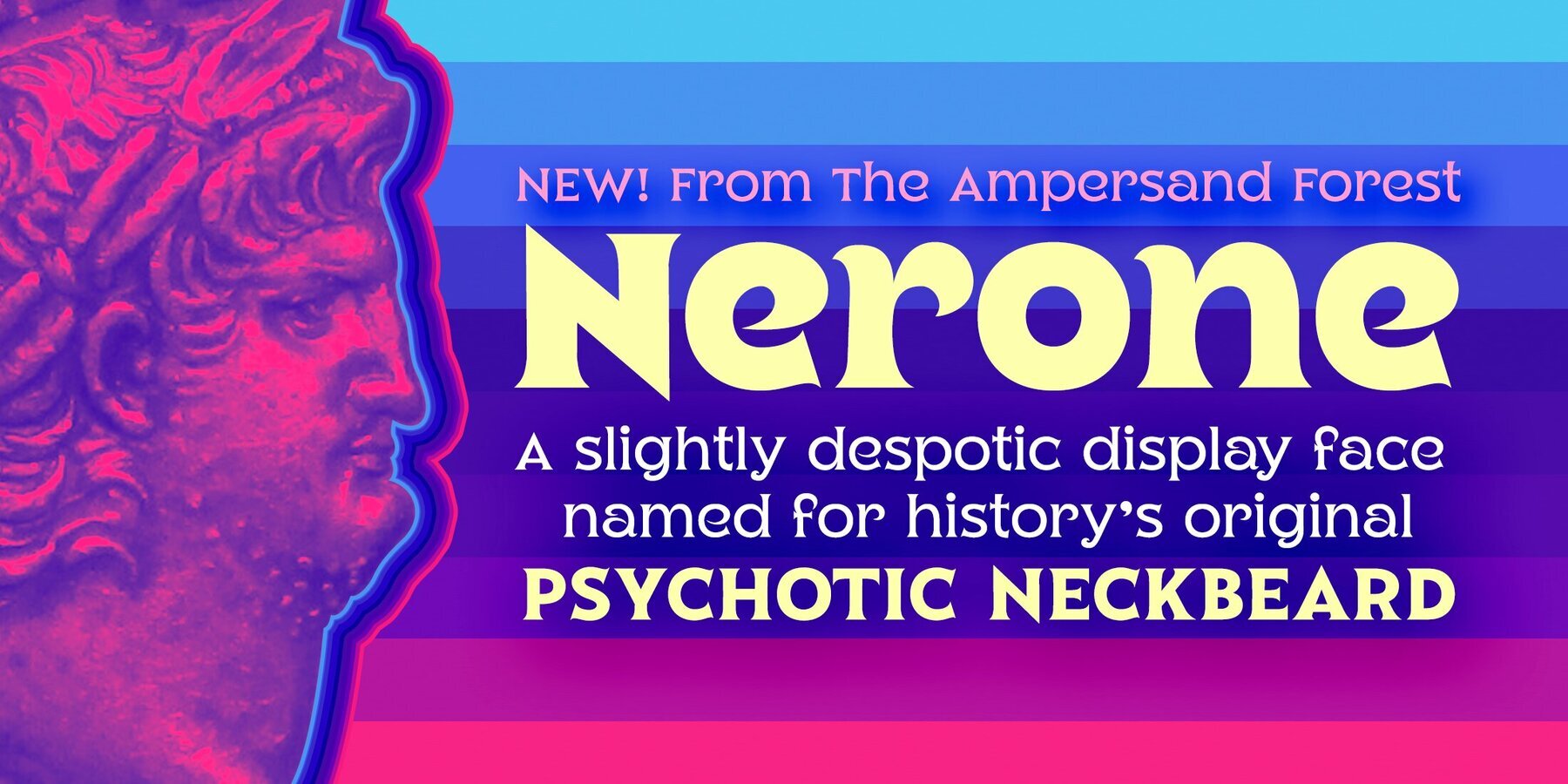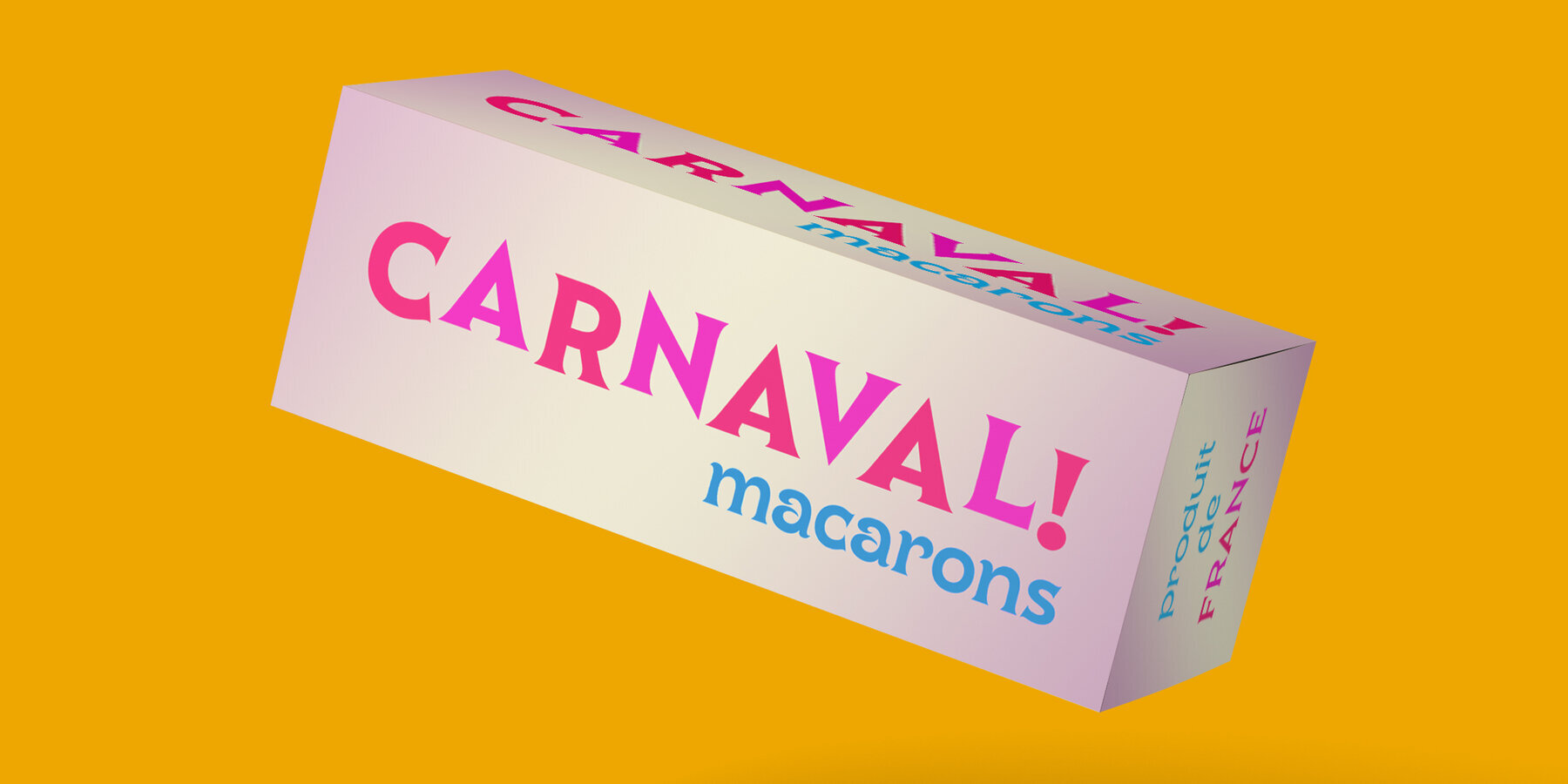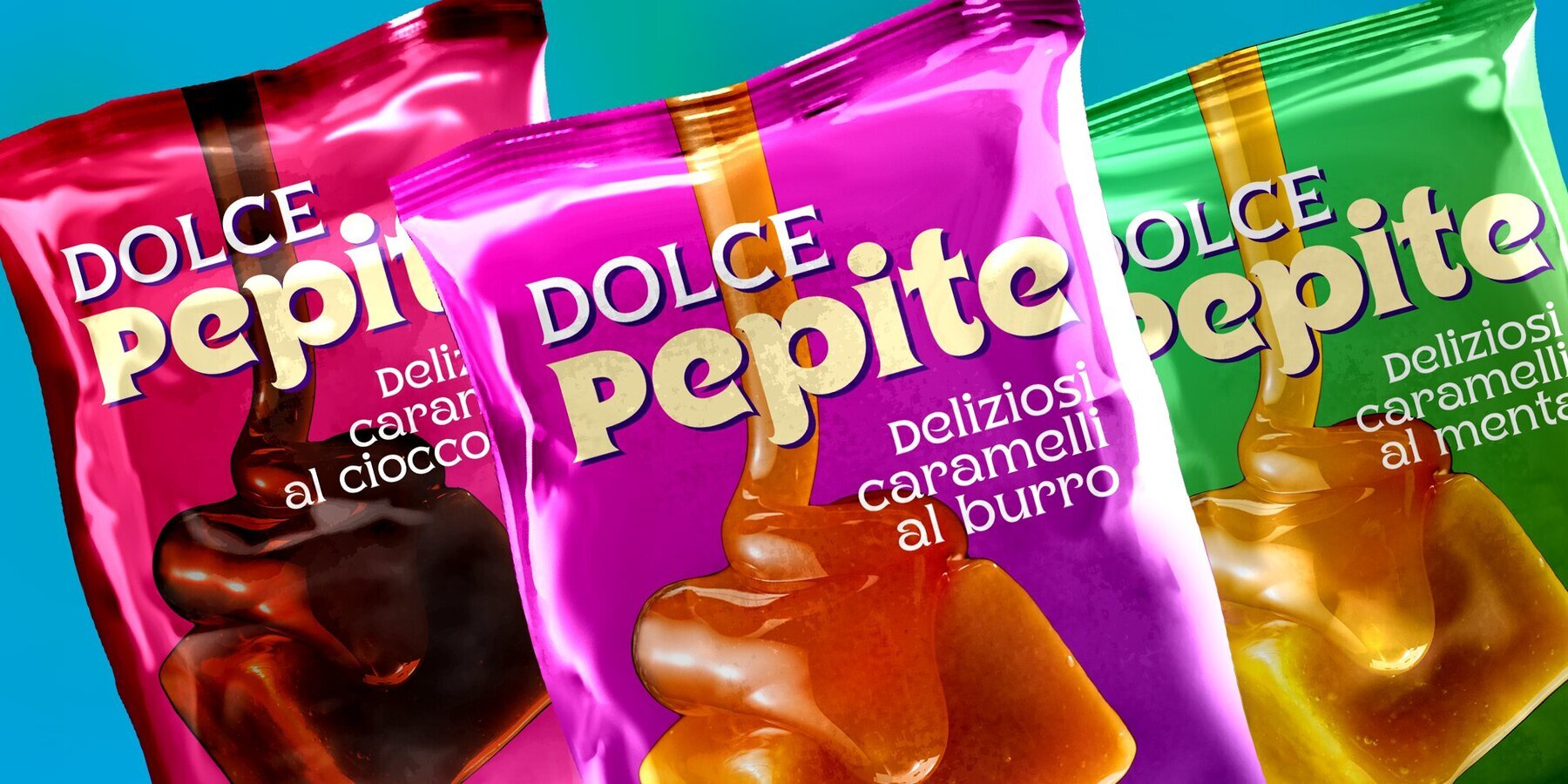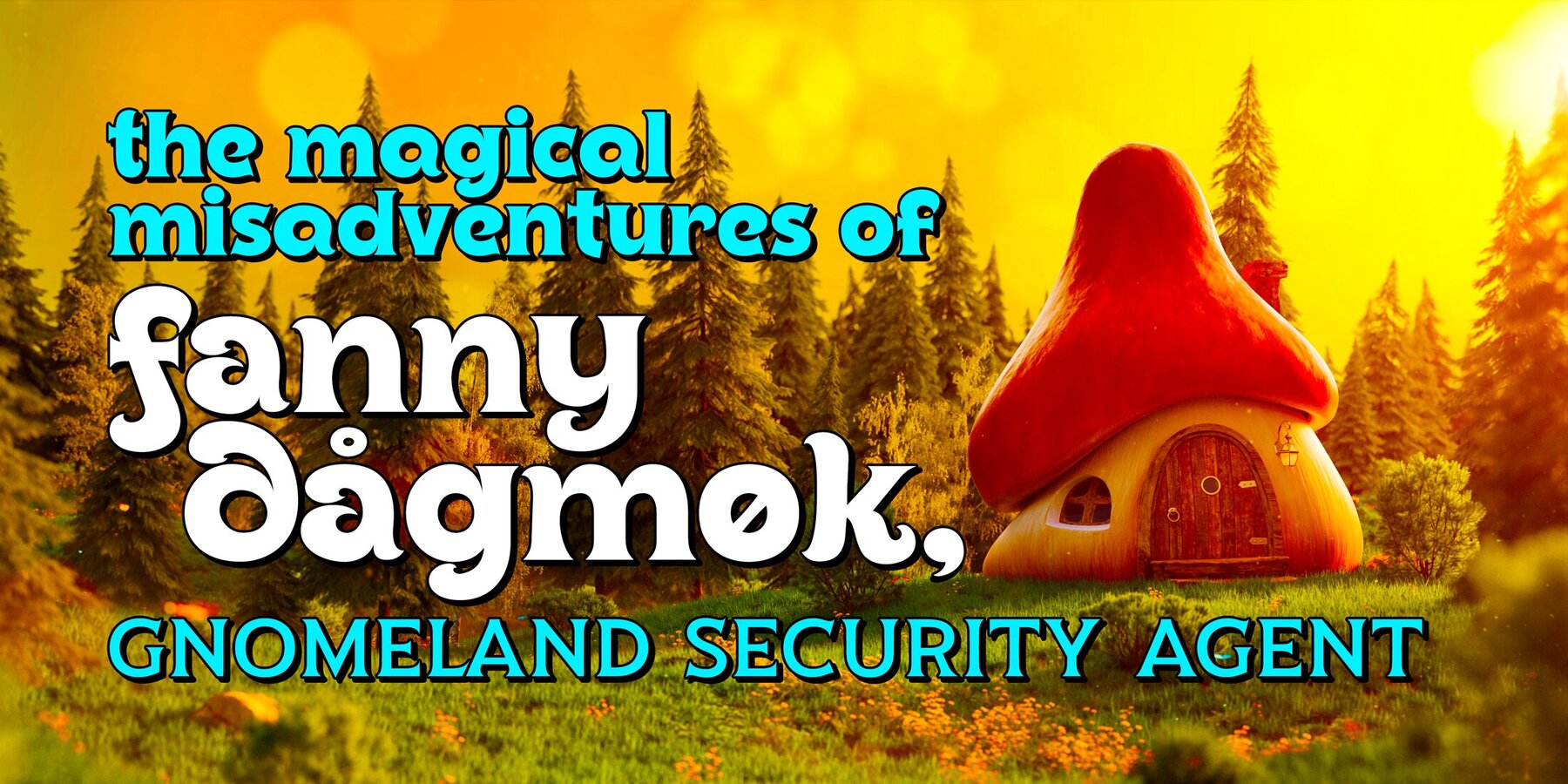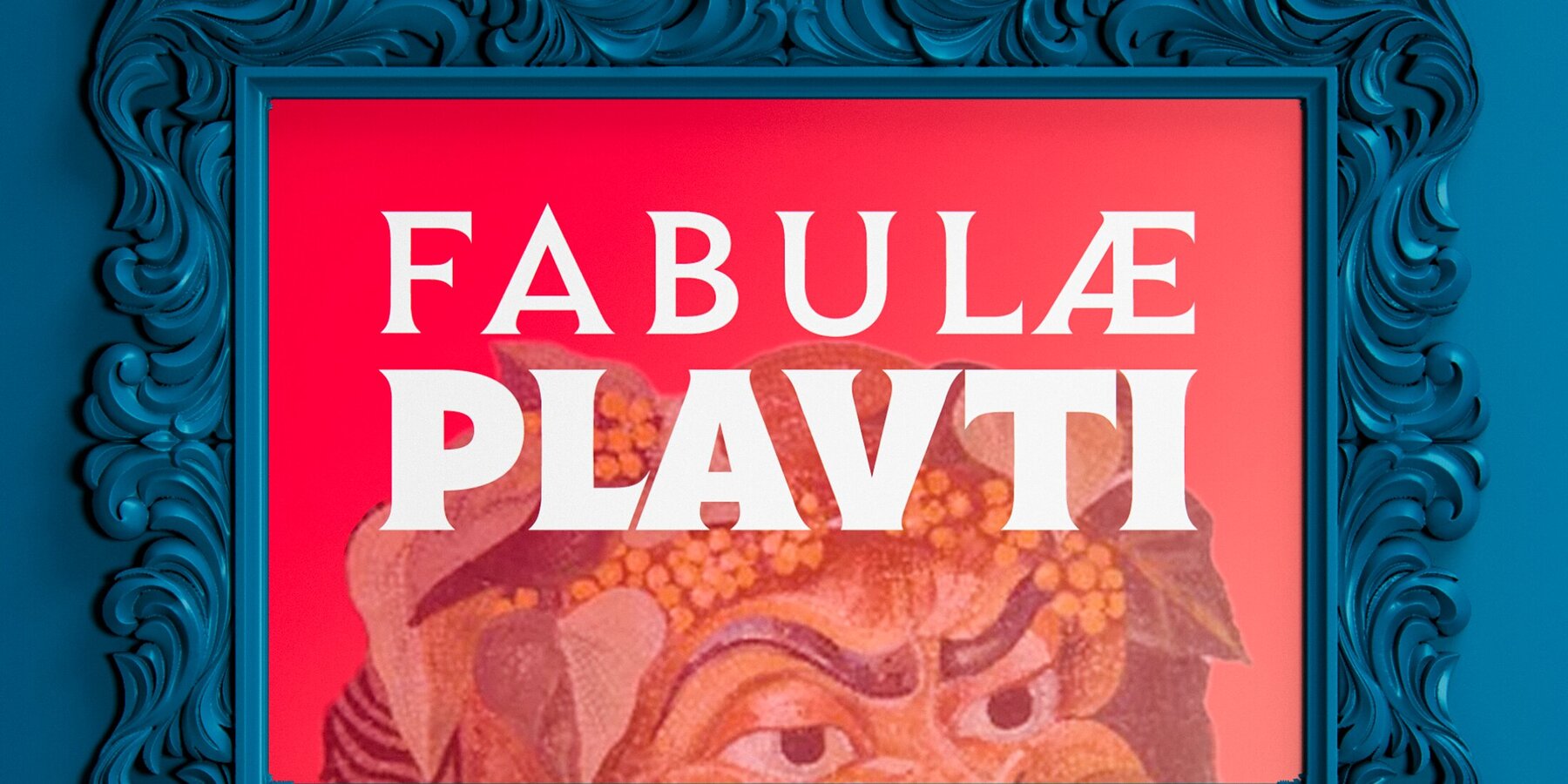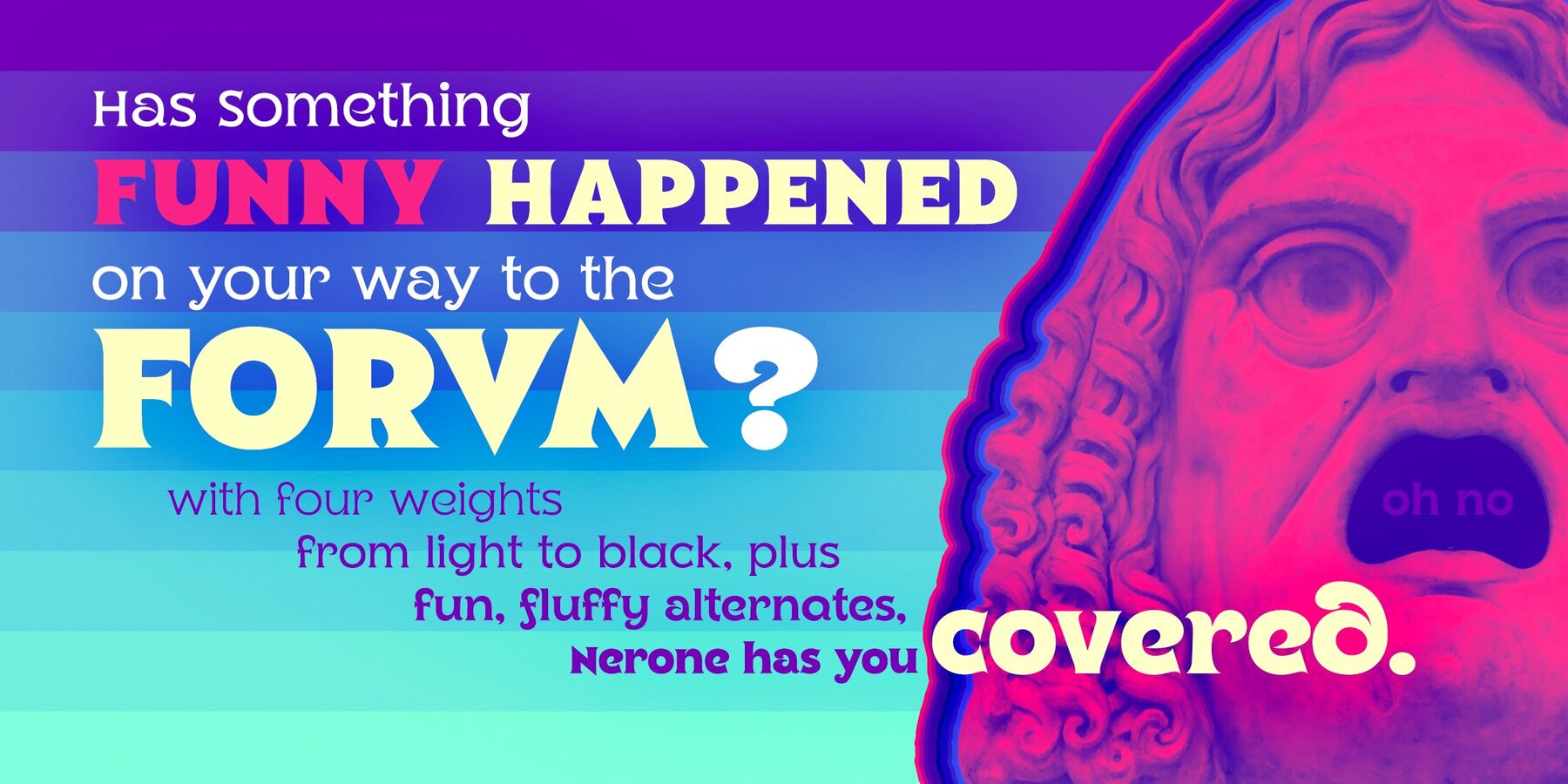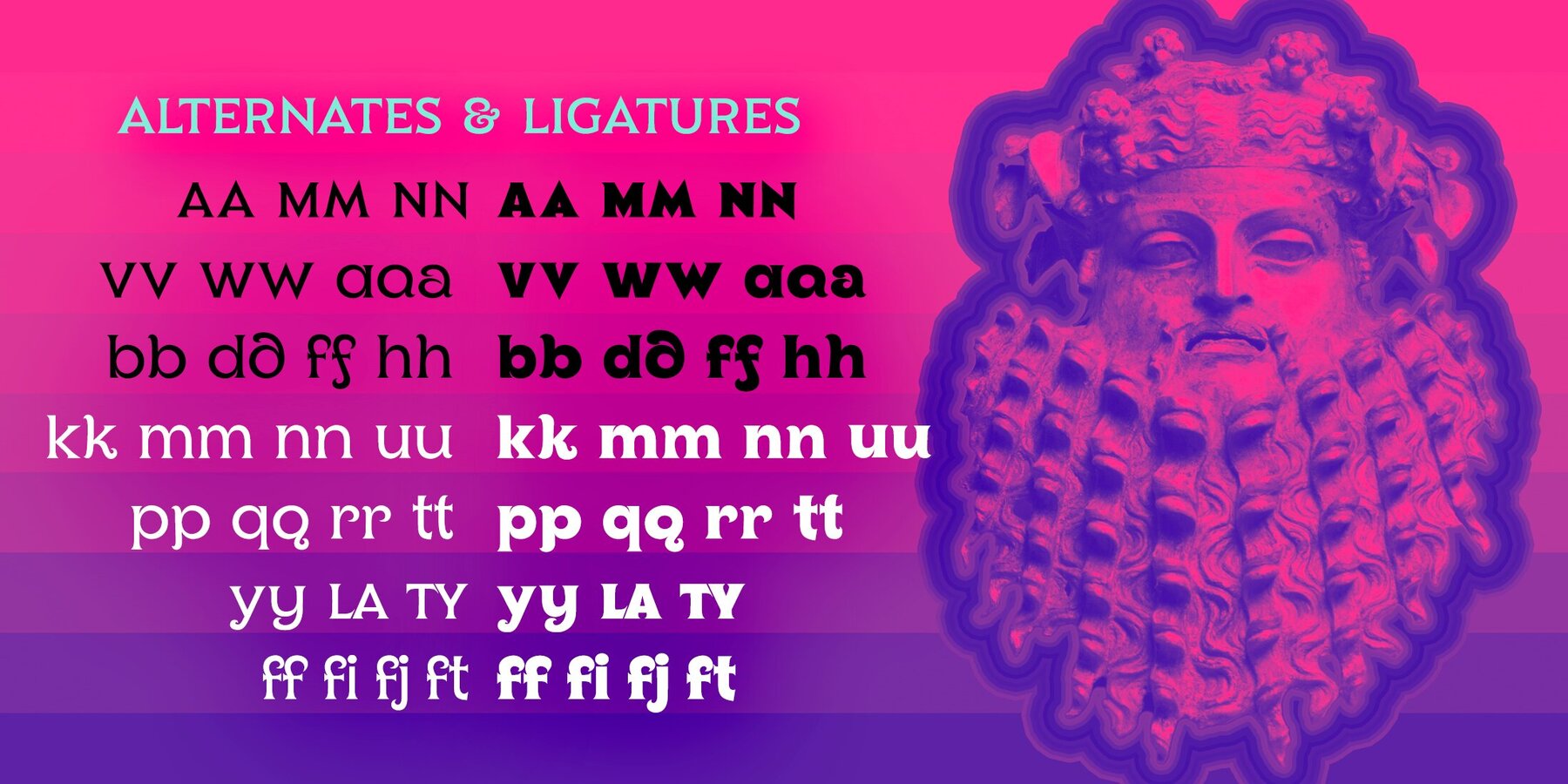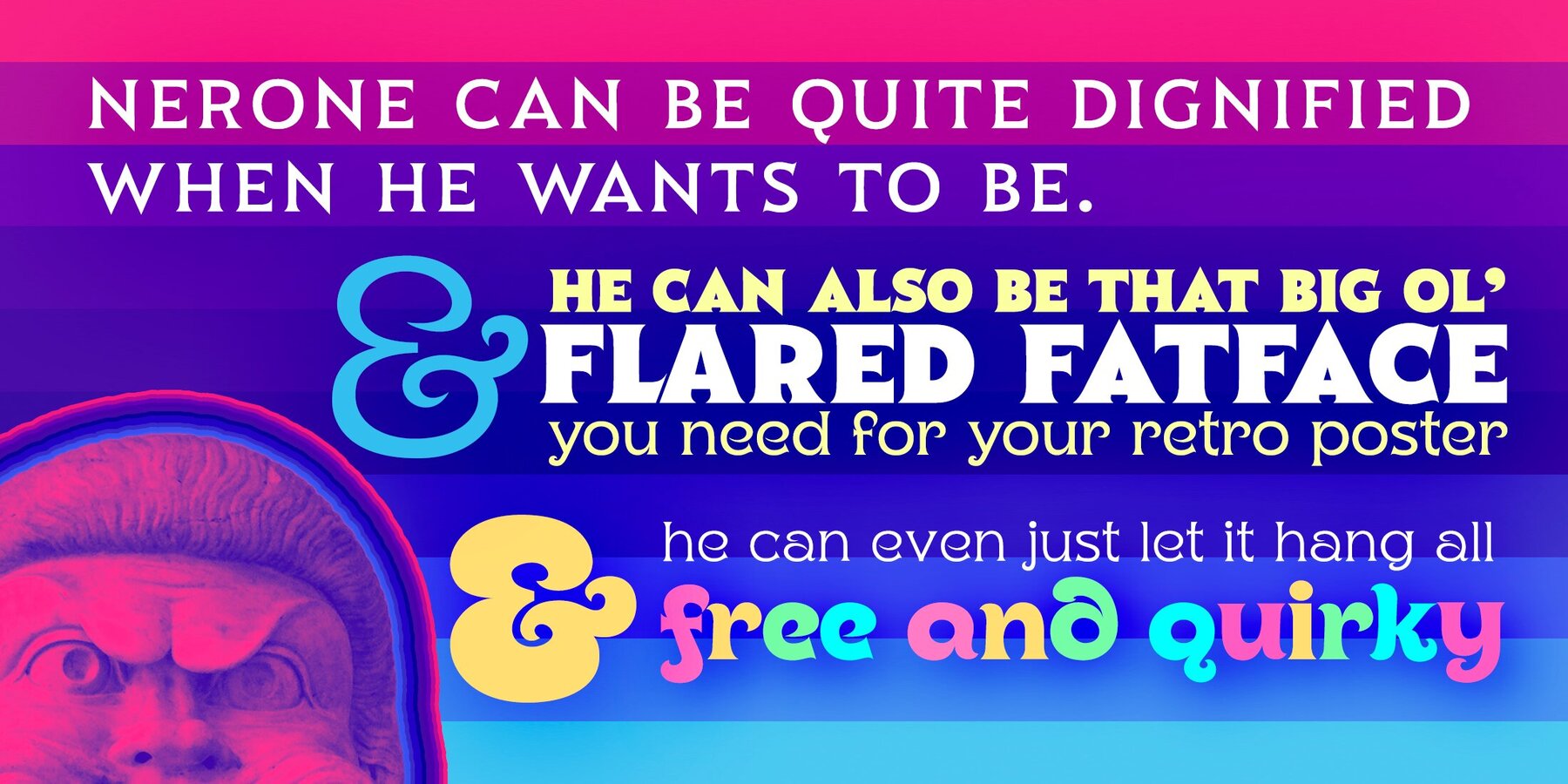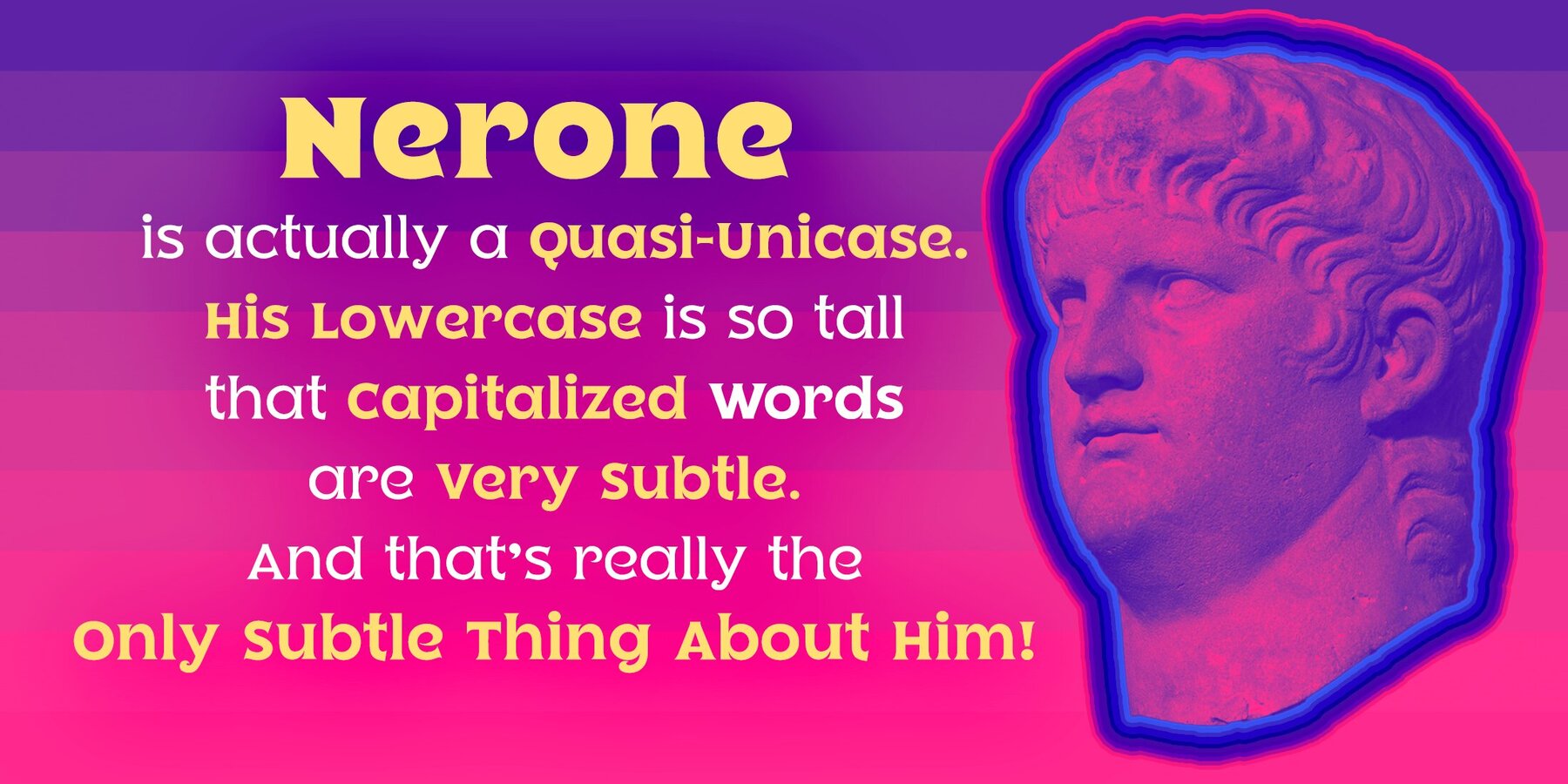
Nerone Font
Inspired by history’s most famous psychotic neckbeard! Nerone is a quasi-unicase display type family in four weights, from light to black. In its lighter versions, it's reminiscent of dignified flared serifs like Albertus. In its black version, it's comparable to display faces like Serif Gothic, with a hint of Mostra-like despotism...
Inspired by ancient Roman capitals, Nerone takes a whimsical look at how they might turn into a black fatface, and how a matching lowercase might give the whole affair a whimsical feel — specifically when applied to fun branding and marketing uses.Part of The Ampersand Forest's Sondheim Series, honoring A Funny Thing Happened on the Way to the Forum!